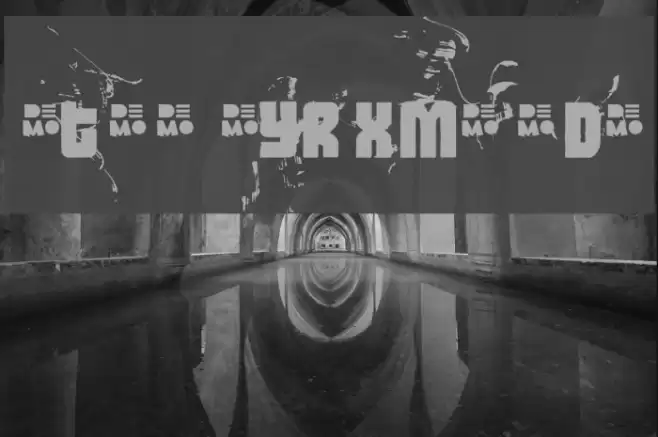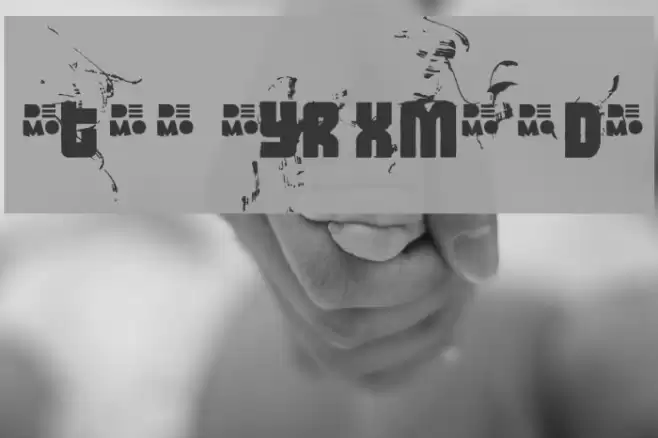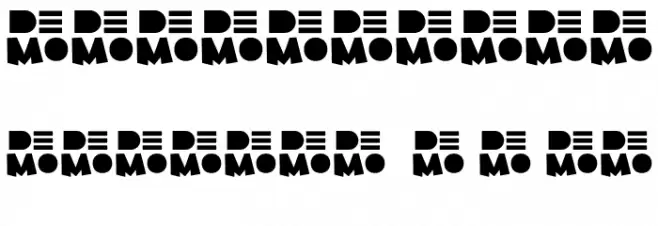
FT3thehardwayRMXmessedDEMO Font
FT3thehardwayRMXmessedDEMO Description
This font is a bold, decorative typeface with a distressed, grunge aesthetic. The characters are heavily stylized, featuring uneven edges and a rough texture that gives them a worn, urban look. The uppercase letters are blocky and imposing, while the lowercase letters maintain the same rugged style. The numbers and special characters follow the same design principles, ensuring a cohesive appearance across all glyphs. This font is ideal for projects that require a strong, edgy visual impact, such as music album covers, posters, or branding for alternative or streetwear brands.
A bold, distressed decorative font with a grunge aesthetic from Uncategorized fonts.
- Proposed Projects: Ideal for music album covers, edgy posters, or streetwear branding.
- Overall Style: Grunge, Urban